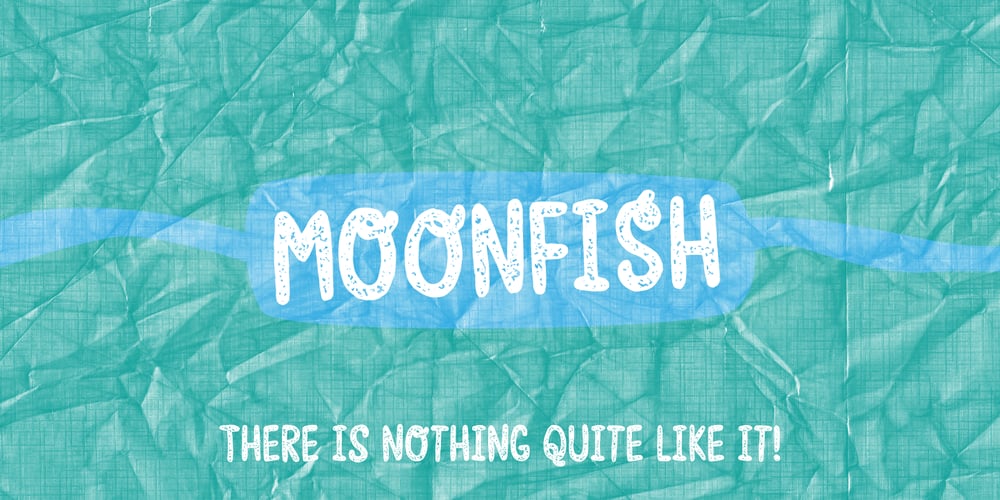
Moonfish Font Family was designed by Jakob Fischer and published by PizzaDude.dk. Moonfish contains 3 styles and family package options. Moonfish swims between magic and fantasy. With its rounded corners and edges, Moonfish leaves a smooth and very legible impression. Comes with alternate upper- and lowercase along with swashy alternates for all lowercase letters!